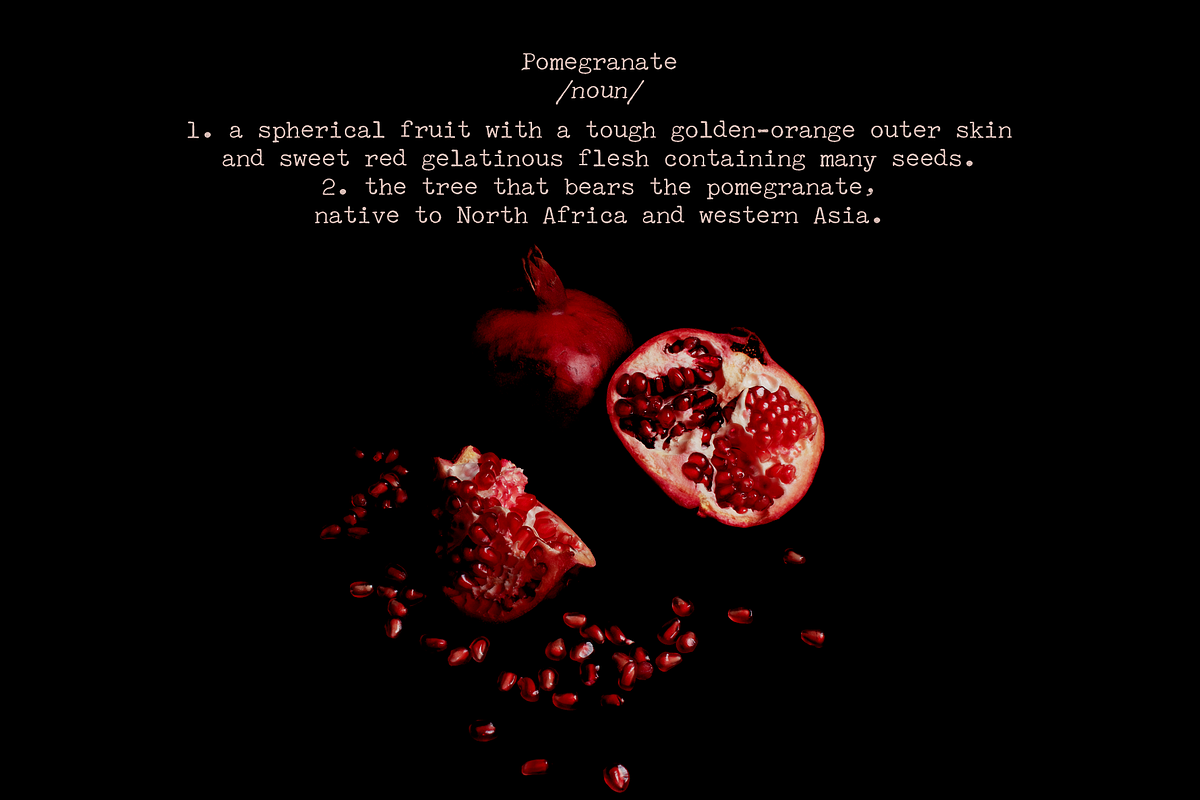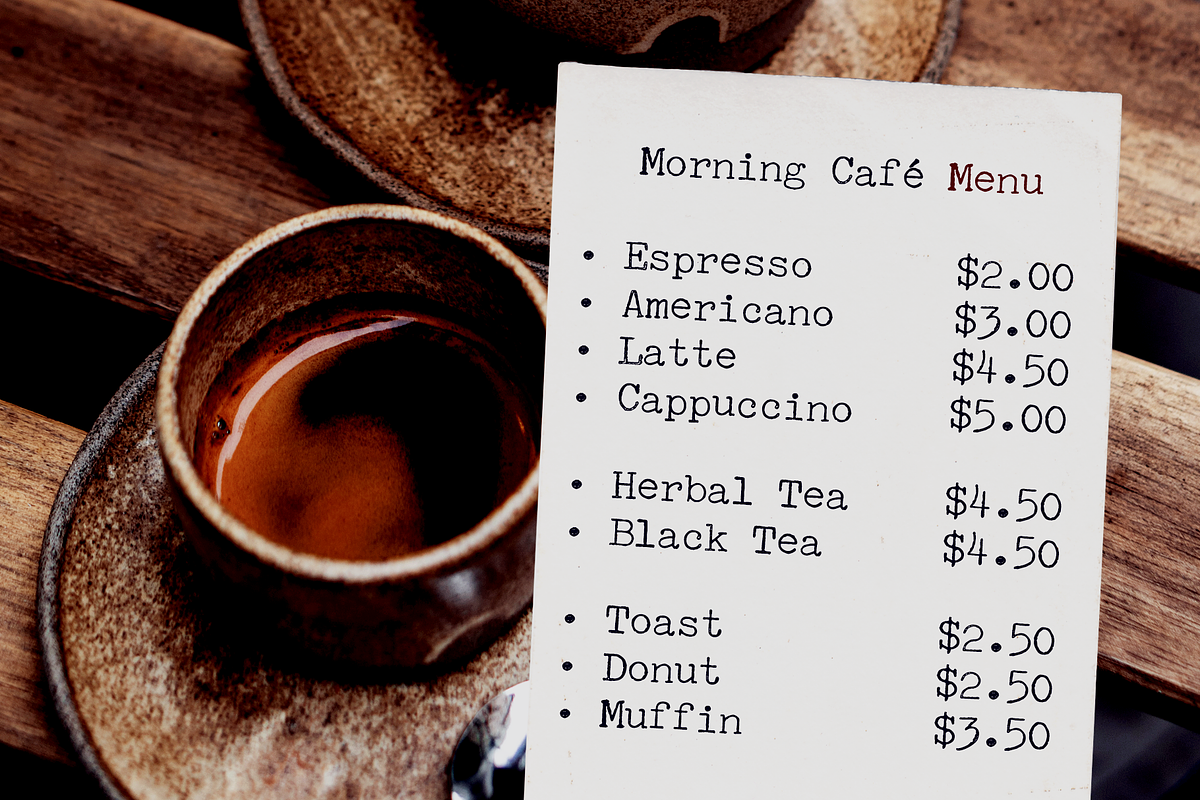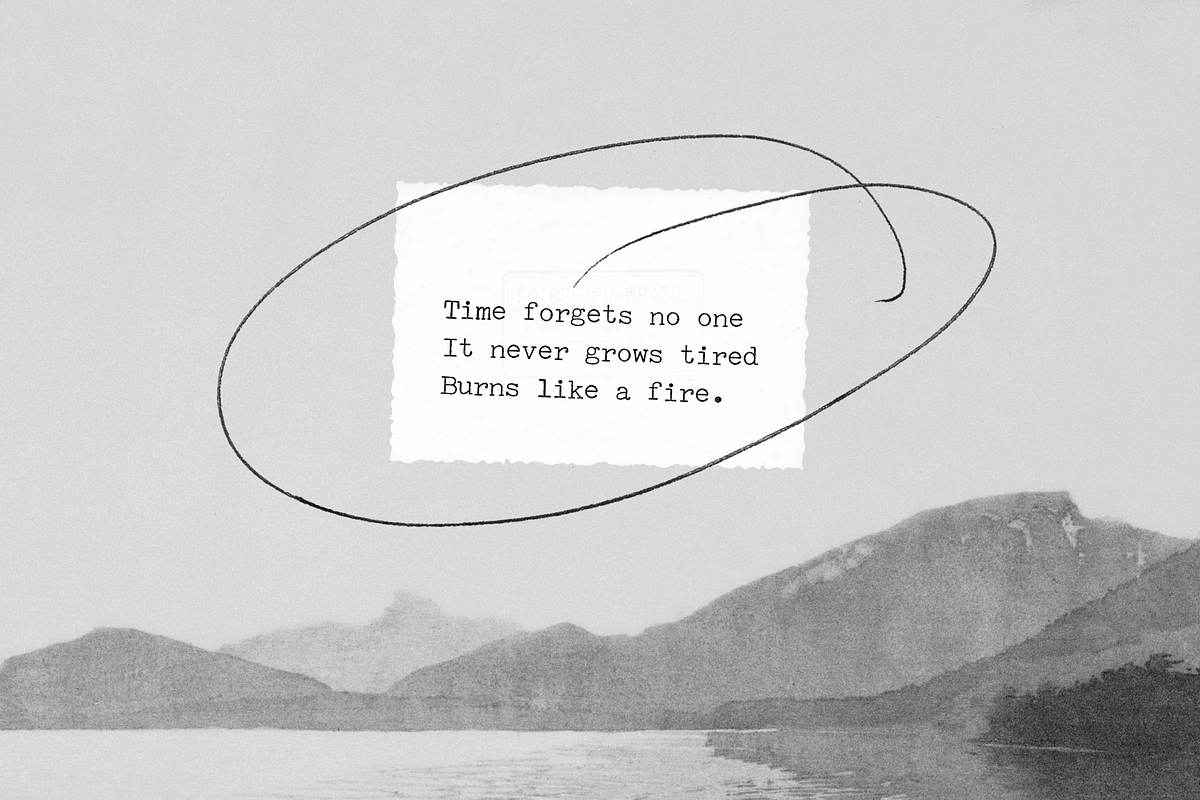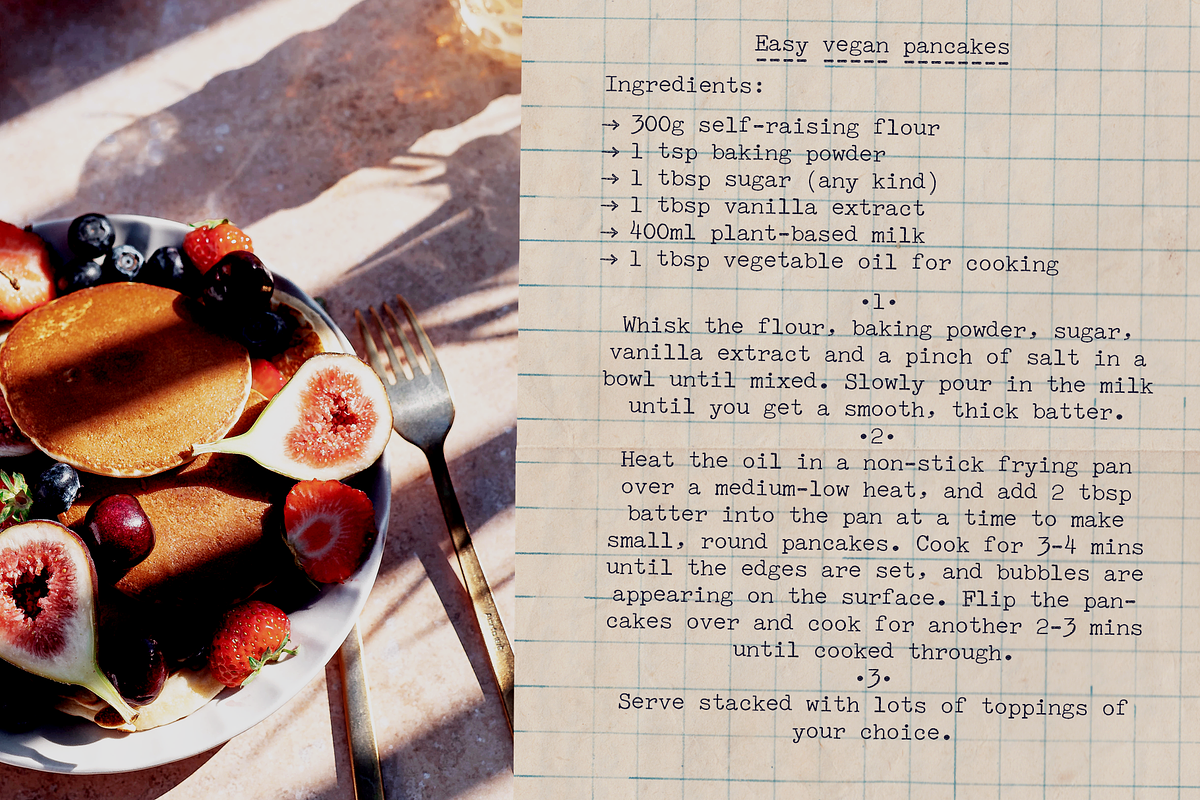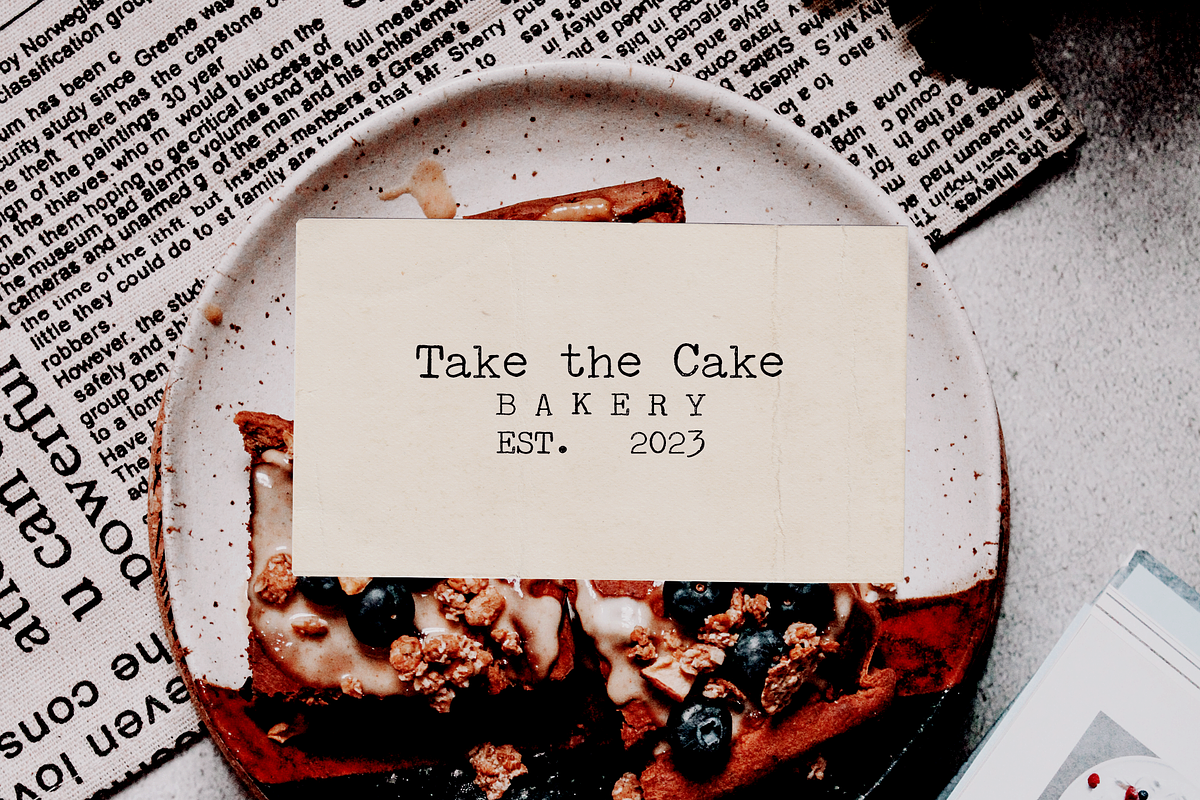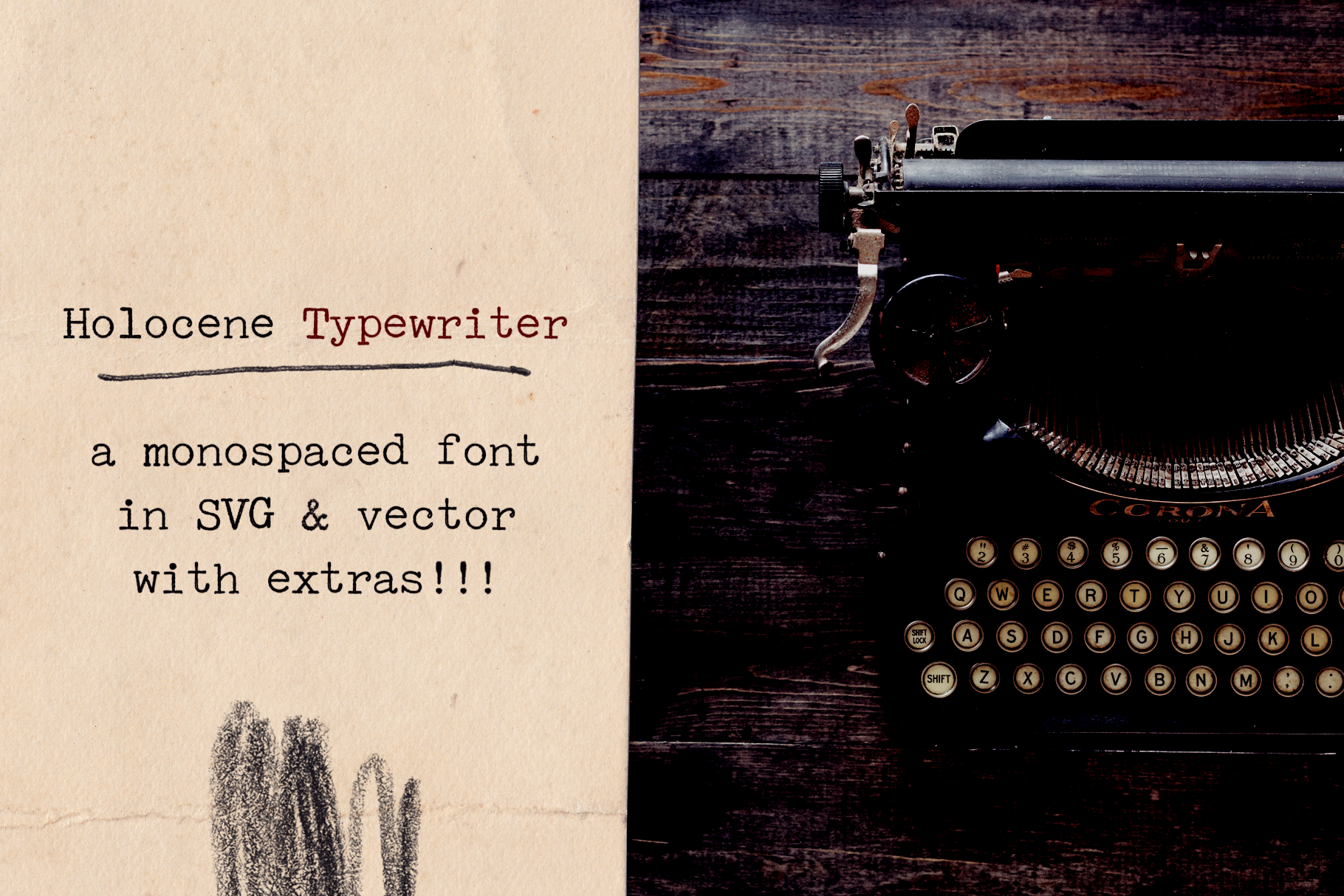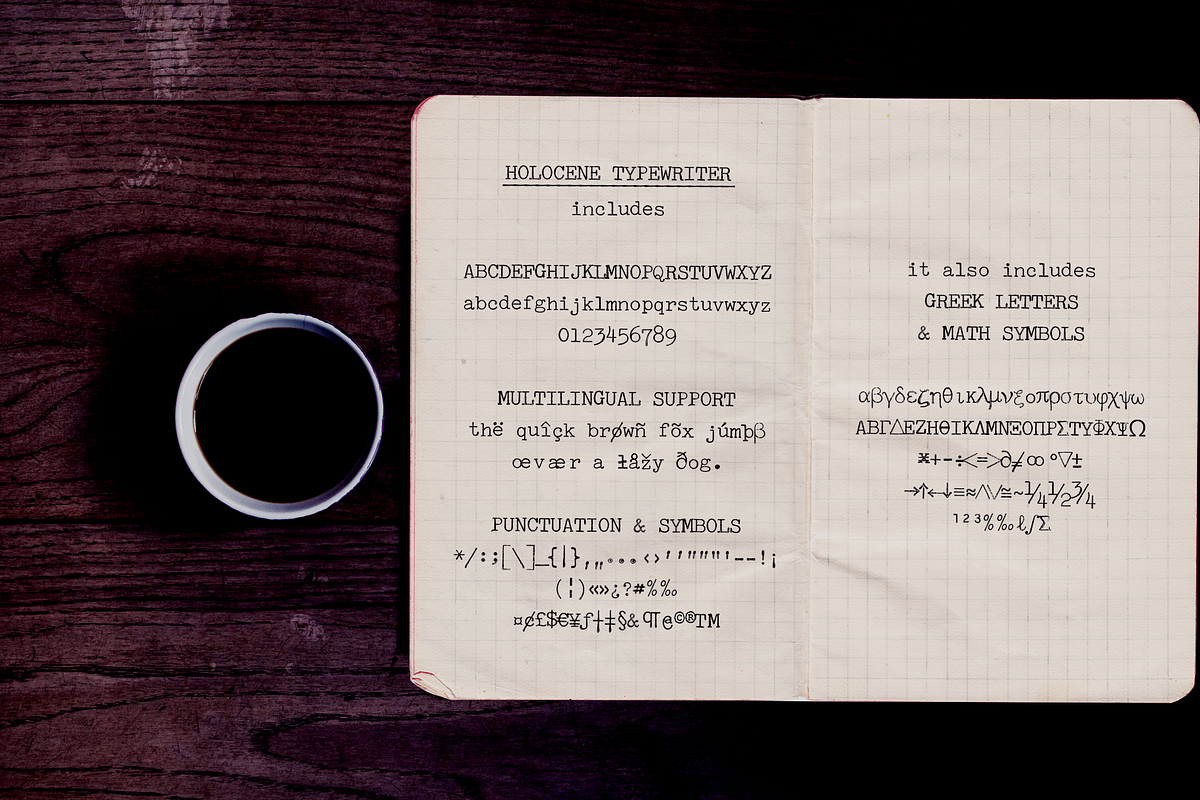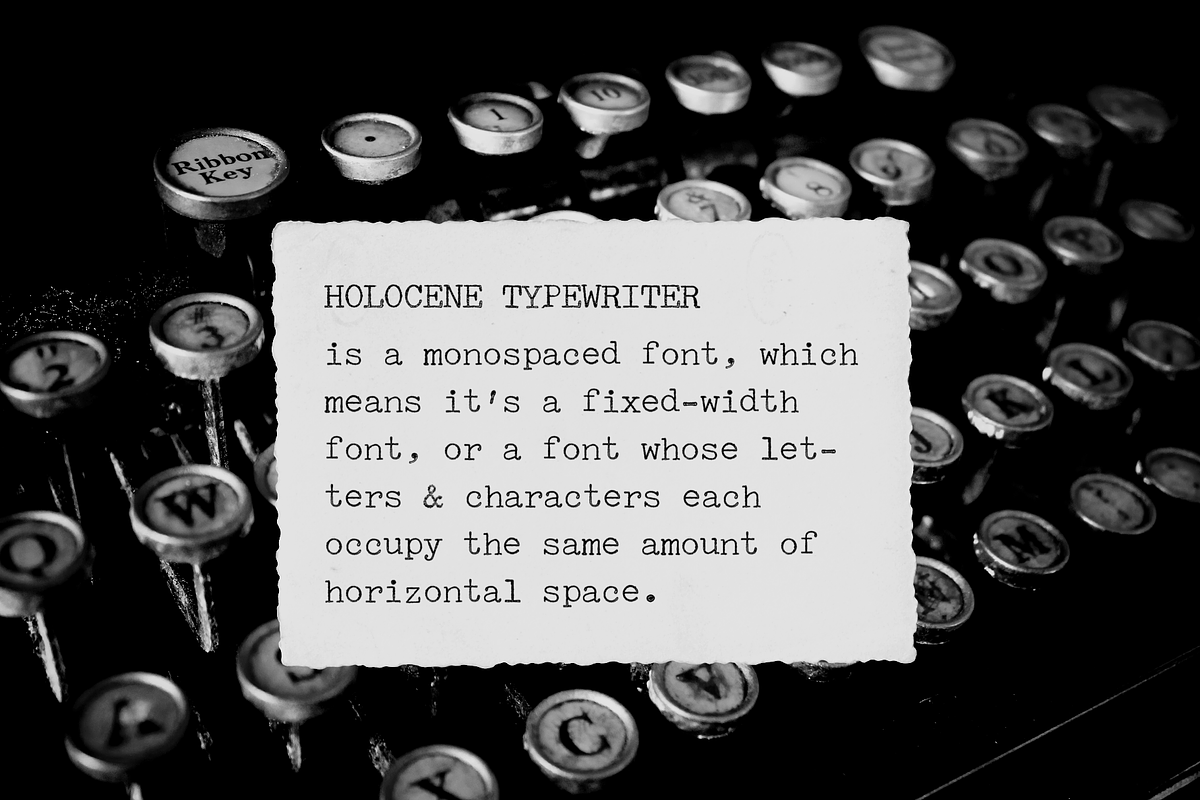
Holocene Typewriter SVG Font
Holocene Typewriter is a soft typewriter font sampled from old documents, for an authentic vintage look.
Holocene Typewriter includes:
- a Typewriter font in Regular, Slant, Underlined and Crossed-out styles
Use this set in any designs that needs a vintage touch. Use it in long or short texts, in digital collages, branding and packaging, social media posts, logotypes, etc.